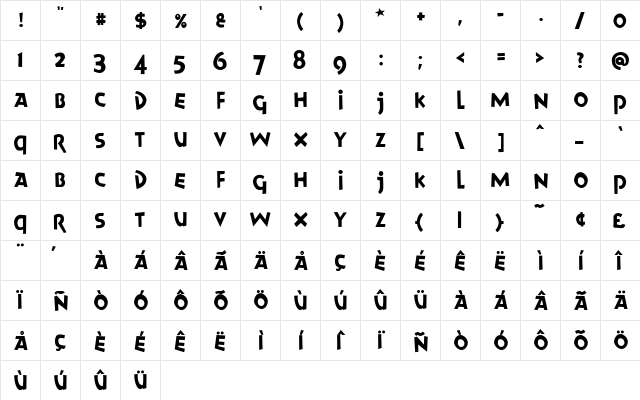
Goliath Medium
Design Context for Goliath Typeface
Goliath is a composed and adaptable typeface that performs quietly and consistently across a wide range of design contexts.